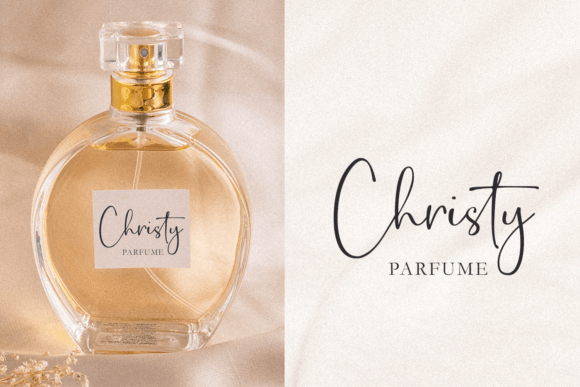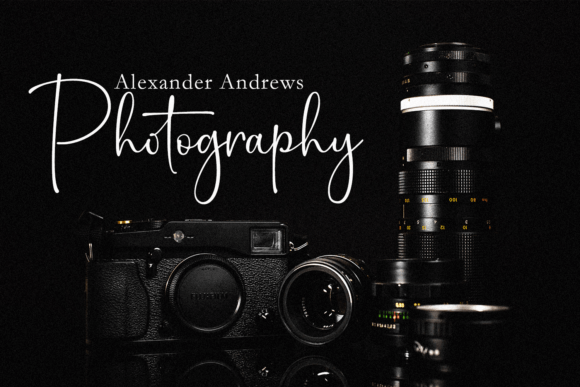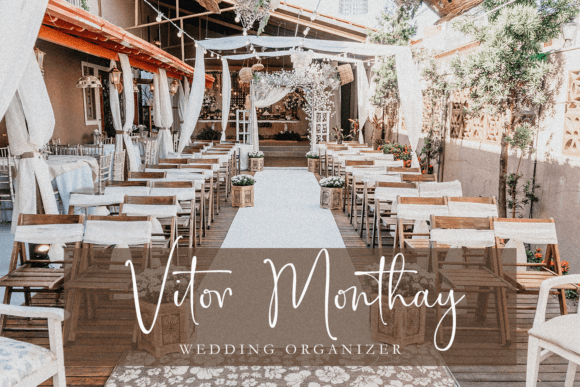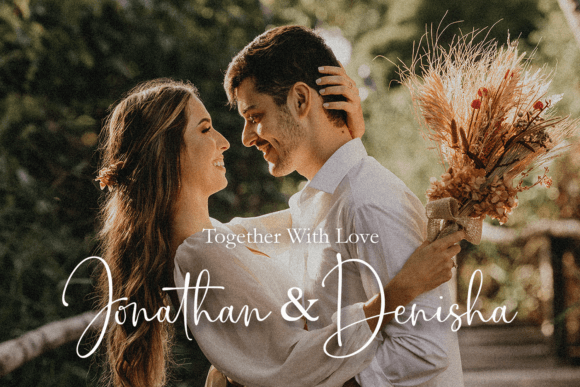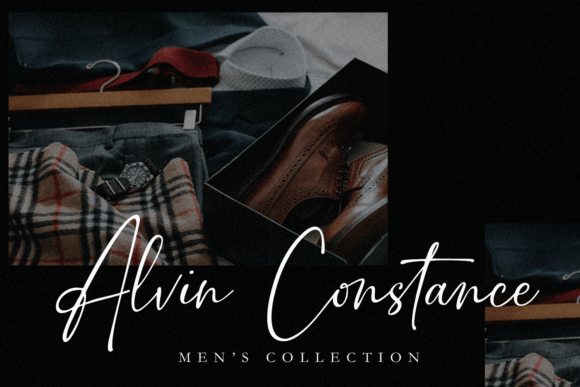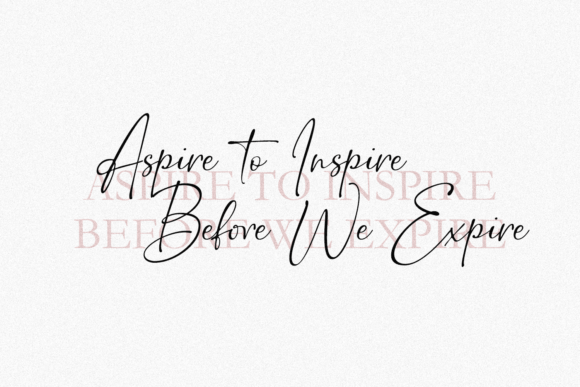
Introduction to Santley Font
Santley is a graceful, modern calligraphic font.
With its beautiful rhythm, this font will help you create gorgeous and classy compositions Its casual charm makes it appear wonderfully down-to-earth, readable, and, ultimately, incredibly versatile.
Key Features of Santley Font